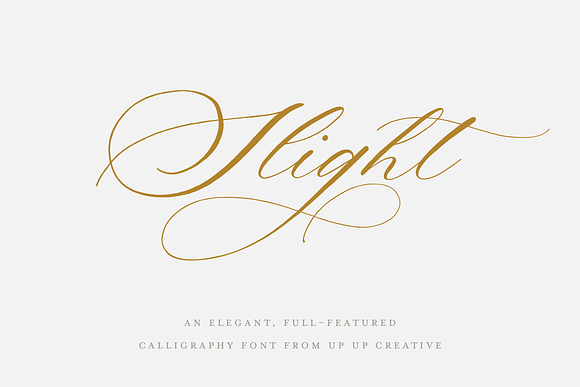
Slight, A Calligraphy Font
Slight, A Calligraphy Font is perfect for delicate wedding invitations, elegant stationery designs, sophisticated beauty brand packaging, refined greeting cards, luxury boutique signage, graceful social media graphics, upscale restaurant menus, and intimate poetry publications. This exquisite typeface excels in applications where subtle elegance and refined femininity are essential for creating memorable and emotionally resonant brand experiences.
What makes Slight, A Calligraphy Font truly exciting is its masterful balance of delicate refinement and expressive artistry that captures the essence of traditional calligraphy with contemporary sophistication. The font features graceful letterforms with gentle strokes and subtle flourishes that demonstrate the artist's restrained hand and impeccable taste. Its understated elegance and whisper-soft character create an atmosphere of intimacy and refinement that resonates with discerning audiences seeking authentic beauty and personal connection. The typeface's delicate personality and artisanal quality make it perfect for brands wanting to convey sophistication, craftsmanship, and connection to traditional calligraphic arts while maintaining modern relevance.
The Slight, A Calligraphy Font family includes regular and ornamental versions, complemented by delicate swashes and refined stylistic alternates. The font offers comprehensive OpenType features with contextual ligatures that create natural calligraphic connections, enhancing the authentic handwritten appearance. Additional decorative elements including gentle flourishes, elegant terminals, and subtle ornamental details provide designers with enhanced creative flexibility for custom applications and sophisticated brand storytelling.